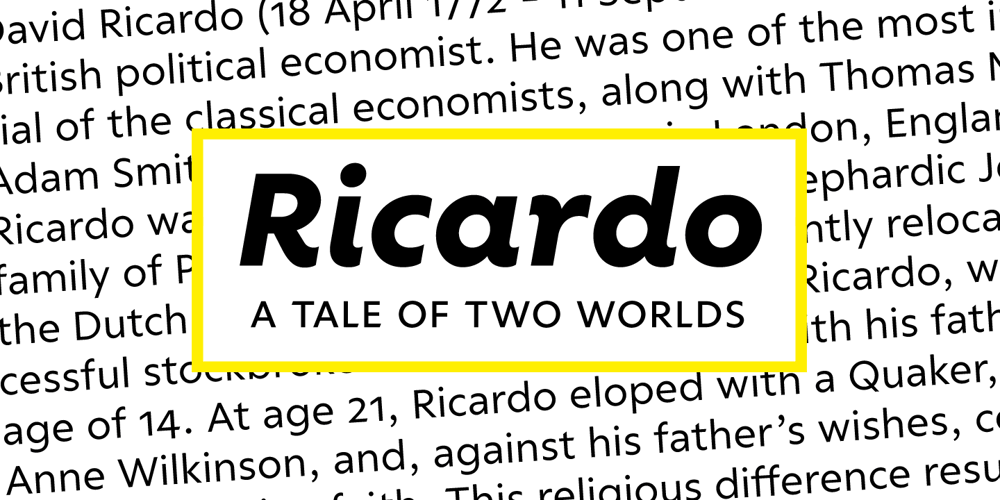
Ricardo Font Family was designed by Jasper de Waard and published by Bureau Roffa. Ricardo contains 35 styles and family package options. Rather than confining itself to a single style, Ricardo combines the best of two worlds: the conceptual clarity of a geometric design with the legibility and warmth of a humanist design. Its open counters, crisp joints, and even texture allow for effective use in long-form text settings, while its simple geometric shapes combined with some unexpected details make it highly suitable for display settings such as branding and marketing. Ricardo contains seven carefully chosen weights, ranging from ExtraLight to ExtraBold. The Medium weight functions as a slightly darker alternative to the Regular. Ricardo’s 812 glyphs per style support over a hundred languages, and also include arrows and case-sensitive punctuation. The Ricardo family consists of three subfamilies: Ricardo, Ricardo ALT, and Ricardo ITA. Ricardo contains the most conventional forms, and is the most suitable option for long-form text. Ricardo ALT contains simplified shapes for the a, j, u, and t, which are also accessible through Stylistic Set 2 within Ricardo (in opentype-savvy applications). The cursive-like italics of Ricardo ITA provide a slightly more eccentric alternative to the standard italics. Furthermore, all styles contain stylistic alternates that swap the blunt apexes in A, M, N, V, W, v, w, y, and 1 for pointier ones. These are also accessible through Stylistic Set 1. Other opentype goodness includes: (discretionary) ligatures, smallcaps, case-sensitive forms, fractions, nine sets of numerals, and more. David Ricardo (1772-1823) is considered the first of the classical economists, and combined ground-breaking mathematical abstractions with an understandable down-to-earth way of explaining his ideas.